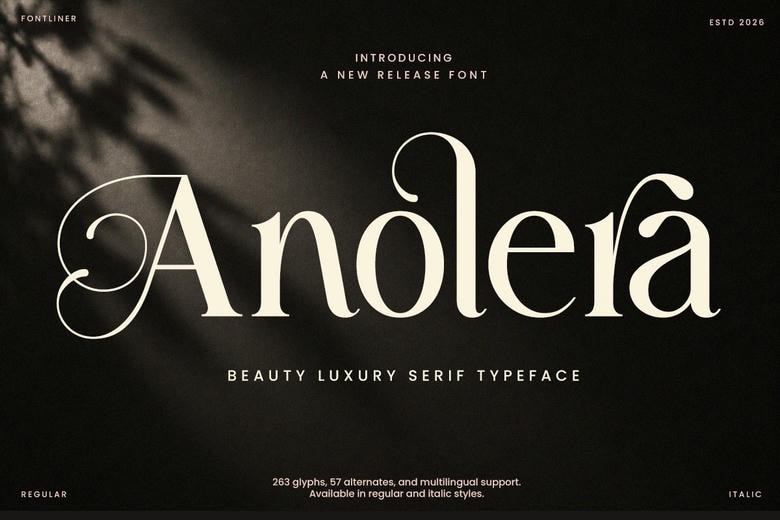
Anolera Font
Anolera is a luxury serif typeface that brings elegance, beauty, and a timeless feel to your designs. Its graceful curves, subtle contrast, and thoughtfully crafted alternates make your project stand out with a modern, stylish touch.
This font blends classic serif features with decorative details, giving it a luxurious style that works well for modern brands and high-end visual identities.
Anolera works well for beauty brands, luxury boutiques, magazines, jewelry lines, skincare products, and upscale lifestyle businesses. It is easy to read and adds artistic flair.
With its elegant letterforms and premium style, Anolera is a strong choice for projects aiming for a refined, luxurious appearance.
Anolera Serif Font